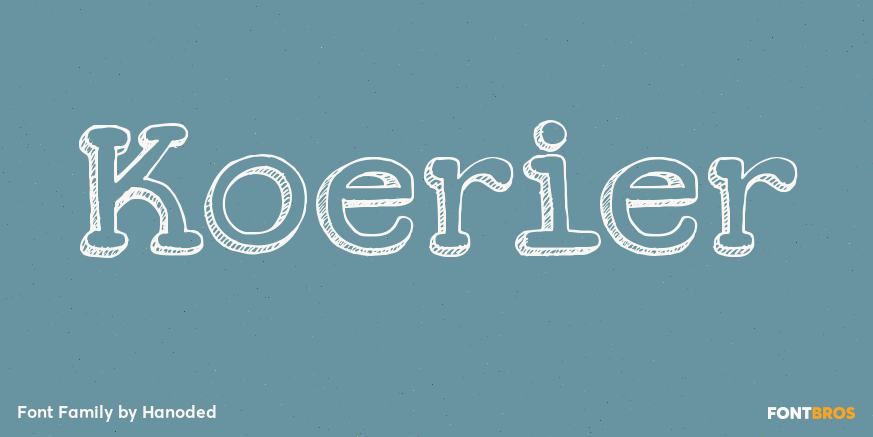
Koerier
About Koerier
Koerier means \’Courier\’ in Dutch and is a reference to the classic font it was modeled on. Each glyph was hand drawn, giving the font a unique look and feel, making it an ideal typeface for ads, posters and packaging. Comes with a full range of diacritics.…